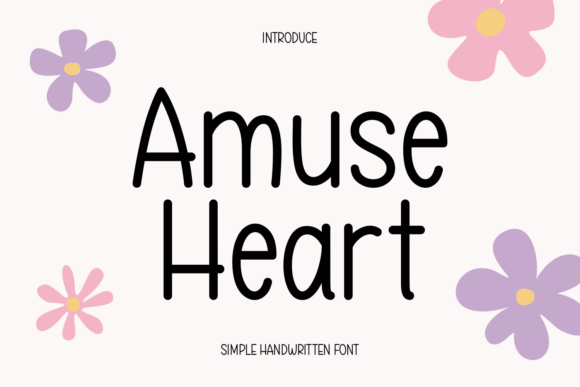
Experience the Captivating Allure of Amuse Heart Font
The world of typography is vast and diverse, with each font carrying its unique charm and character. Among these, the Amuse Heart font stands out for its simplicity and tender, sweet nature. This captivating font has the power to envelop your words in a cloud of warmth and elegance, making it a perfect choice for various media. Whether you’re looking to adorn garments, enhance the appeal of books, or add a personal touch to greeting cards, the Amuse Heart font elevates your expressions to a new level of beauty.
What Makes Amuse Heart Font Special?
- Simplicity and Elegance: At first glance, the Amuse Heart font may seem simple, but it carries an elegance that is hard to ignore. Its clean lines and curves bring a sense of sophistication to any text.
- Versatility: One of the key features of the Amuse Heart font is its versatility. It can be used in a variety of contexts, from digital media to print, and from casual to formal settings.
- Emotional Connection: The font has a way of conveying emotions with a tender sweetness that is rare in typography. It’s perfect for projects where you want to evoke feelings of love, warmth, and connection.
Creative Ways to Use Amuse Heart Font
The Amuse Heart font is not just a typographic style; it’s a creative tool that can bring your ideas to life. Here are some innovative ways to use this captivating font:
- Fashion and Apparel: Add a touch of elegance to your clothing line or personal fashion projects. The Amuse Heart font can be used for quotes, brand names, or any message you want to convey with style.
- Book Publishing: Enhance the appeal of your book covers, titles, or even interior quotes with the Amuse Heart font. It’s especially effective for romance, poetry, and children’s books.
- Greeting Cards: Personalize your greeting cards for special occasions like Valentine’s Day, anniversaries, or birthdays. The font adds a warm, loving touch that makes the card memorable.
- Digital Media: Use the Amuse Heart font in your social media posts, blogs, or website content to give it a unique and engaging look. It’s particularly effective for quotes, headers, and highlights.
Design Tips for Using Amuse Heart Font
To make the most of the Amuse Heart font, consider the following design tips:
- Pairing: Experiment with font pairings to enhance the beauty of Amuse Heart. It works well with both serif and sans-serif fonts, depending on the mood you want to create.
- Color Choices: The font looks stunning in pastel shades, soft whites, and gentle grays. However, don’t be afraid to experiment with bold colors to create a contrast that draws attention.
- Size and Spacing: Play with the size and spacing of the text to create visual interest. Large quotes in Amuse Heart font can be a focal point, while smaller text can add detail and texture to your design.
Finding Inspiration with Amuse Heart Font
Sometimes, all it takes is a little inspiration to spark creativity. The Amuse Heart font can be your muse for various projects. Look to:
- Nature: The curves and lines of the Amuse Heart font can remind you of natural elements like flowers, clouds, and waves. Use these as inspiration for color palettes and design motifs.
- Emotions: Think about the emotions you want to evoke with your project. Love, joy, peace, and serenity are all themes that the Amuse Heart font can convey beautifully.
- Trends: Stay updated with design trends to see how you can incorporate the Amuse Heart font into contemporary styles. Its versatility makes it suitable for both classic and modern designs.
The Amuse Heart font is more than just a typographic style; it’s a way to add warmth, elegance, and a personal touch to your projects. Its simplicity and sweet nature make it a versatile choice for a wide range of applications. By understanding its features, exploring creative usage ideas, and applying thoughtful design tips, you can unlock the full potential of the Amuse Heart font. Let it inspire you to create expressions of beauty that resonate with your audience.